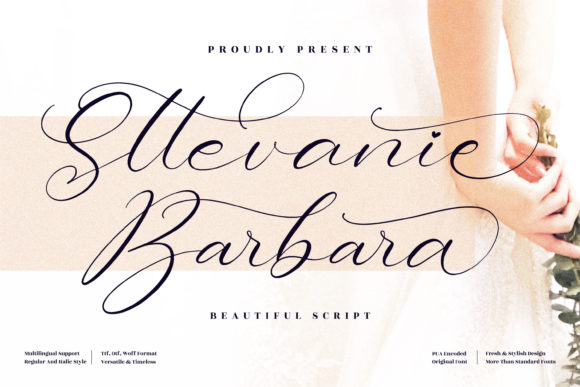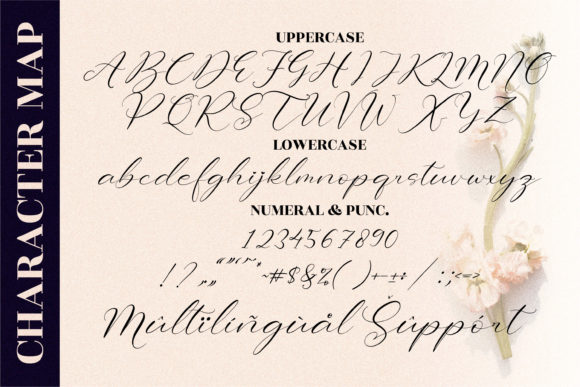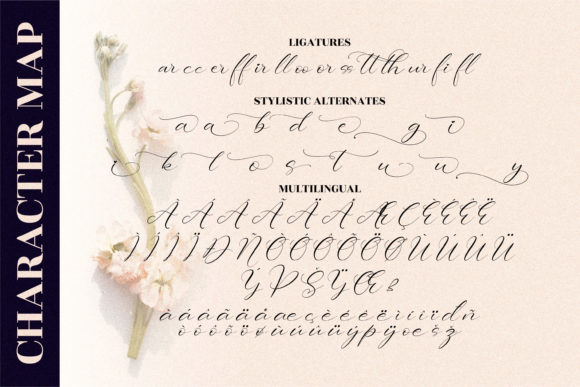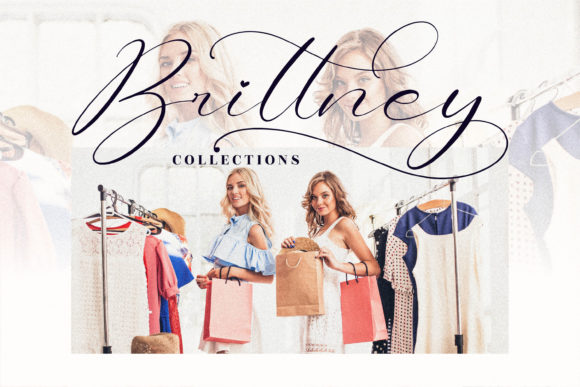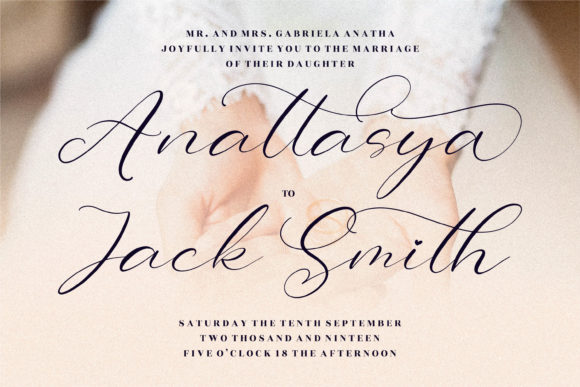
About Sttevanie Barbara Font
Sttevanie Barbara is an elegant script font with a contemporary atmosphere and impeccable form, inspired by timeless classic calligraphy. This font is PUA encoded which means you can access all of the glyphs and swashes with ease!
Fall for its ravishing style and use it to create gorgeous designs.